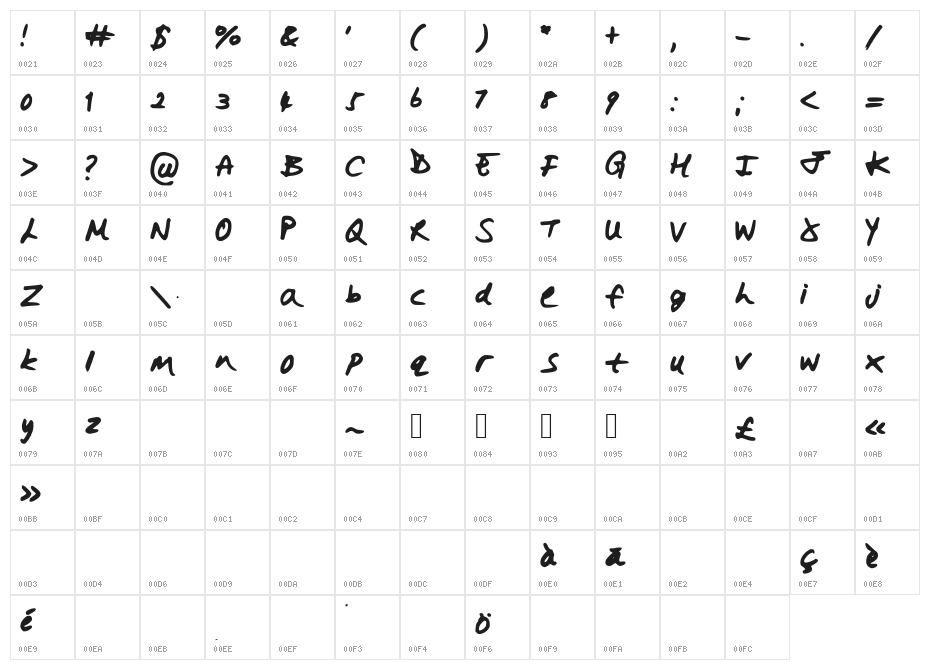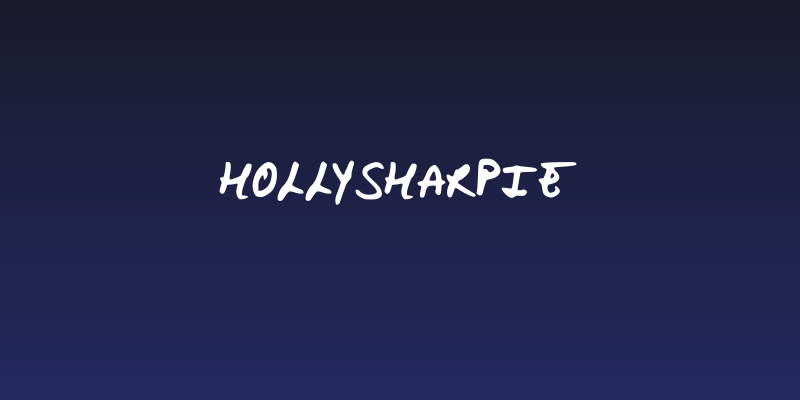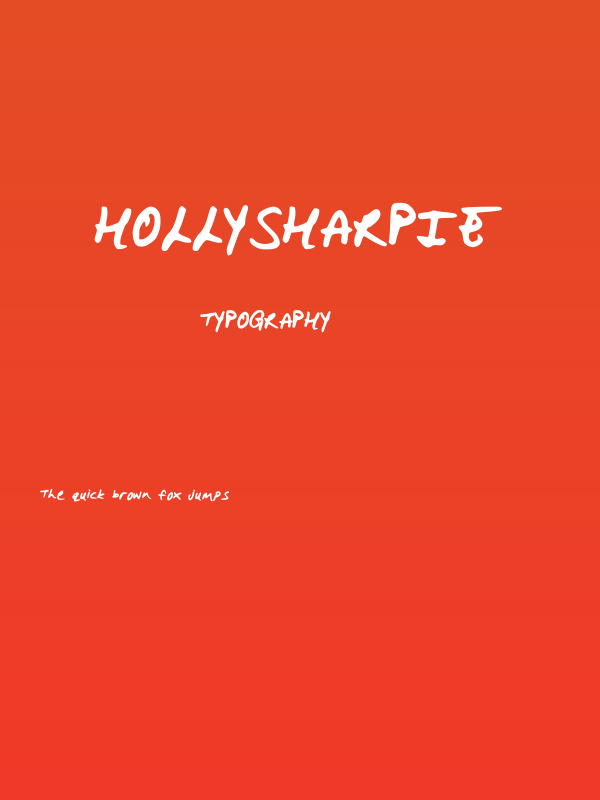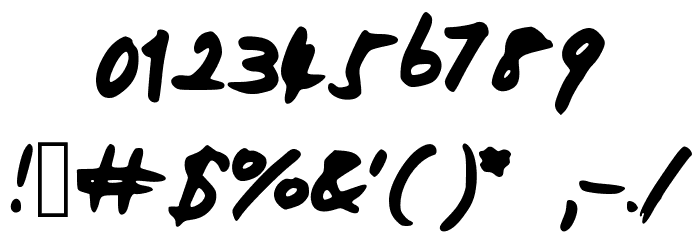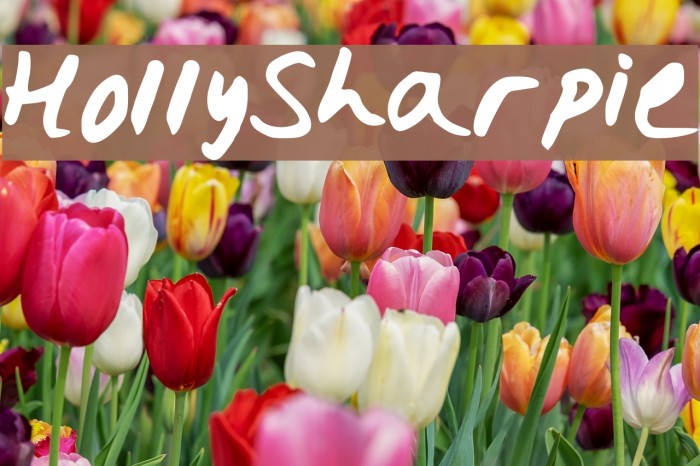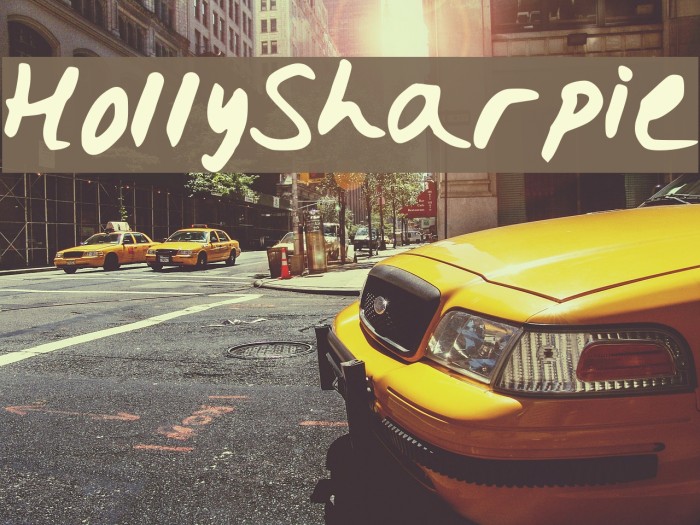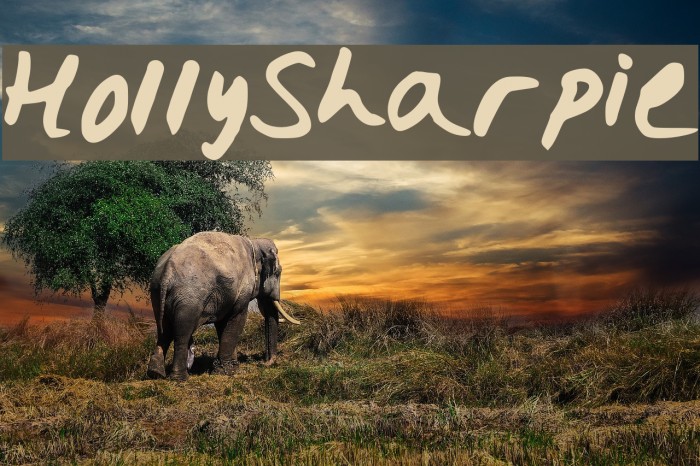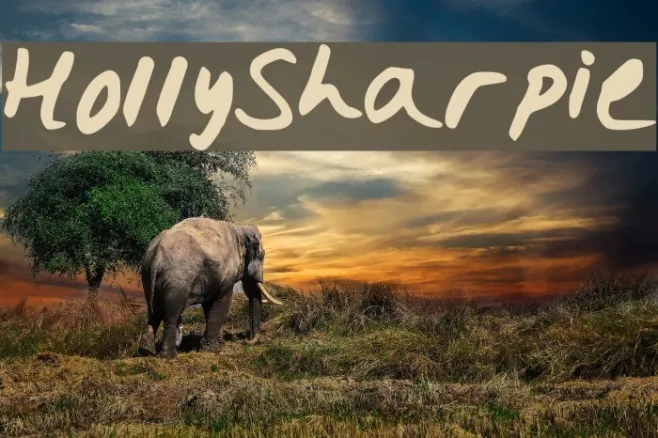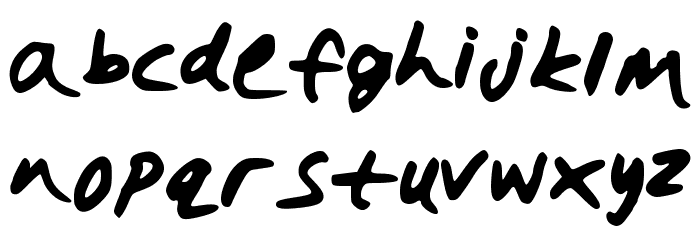
HollySharpie Font
HollySharpie Description
This font exhibits a bold, handwritten style that mimics the look of a marker or brush pen. The characters are slightly irregular, adding a personal and informal touch. The uppercase letters are prominent and assertive, while the lowercase letters maintain a consistent flow, enhancing readability. Numbers and special characters are crafted with the same bold strokes, ensuring uniformity across all elements. The overall appearance is dynamic and energetic, making it suitable for projects that require a casual yet impactful visual presence.
| Overall Style | Casual, Energetic |
| Proposed Projects | Ideal for greeting cards, posters, social media graphics, and branding materials that aim to convey a personal and approachable tone. |